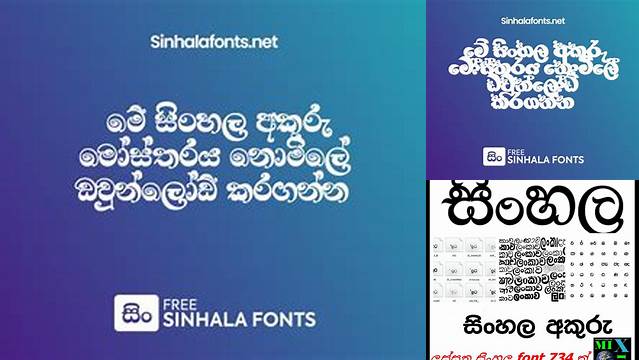
Free Sinhala Fonts: Download The Best Package Now!
1. Understanding the Importance of Sinhala Fonts
Sinhala fonts are essential for anyone working with the Sinhala script, which is used to write the Sinhala language spoken primarily in Sri Lanka. The right font can enhance readability and give your documents, websites, and designs a professional look. Using high-quality fonts ensures that your message is conveyed clearly and beautifully. It's not just about aesthetics; it's about respecting the language and its rich cultural heritage. Think about it – a poorly chosen font can make even the most compelling content look amateurish. So, let's make sure we get this right!
4. Essential Features to Look for in a Sinhala Font
When choosing a Sinhala font, there are several features to consider. First and foremost, readability is key. The font should be easy to read both on screen and in print. Look for fonts with clear, well-defined characters and consistent letter spacing. Also, check for support for all the necessary Sinhala characters and glyphs. A good font will also offer different weights and styles (e.g., bold, italic) to provide flexibility in your designs. Finally, consider the overall aesthetic of the font and how it fits with your project's theme. A font that looks great might not be the best choice if it doesn't align with your design goals.
5. Understanding Sinhala Script and Typography
To truly appreciate Sinhala fonts, it's helpful to understand the basics of Sinhala script and typography. Sinhala is an abugida, meaning that each consonant has an inherent vowel sound, which can be modified with diacritics. This makes Sinhala typography quite complex, requiring fonts that accurately render these diacritics and ligatures. Familiarizing yourself with these nuances will help you choose fonts that are not only beautiful but also typographically sound. Think of it as understanding the grammar of design – the more you know, the better you can communicate your message.
6. Different Styles of Sinhala Fonts
Just like any other language, Sinhala fonts come in various styles, each with its own unique character. There are serif fonts, which have small decorative strokes at the ends of letters, and sans-serif fonts, which have a cleaner, more modern look. You'll also find script fonts, which mimic handwriting, and display fonts, which are designed for headlines and other large text. The best style for your project will depend on the tone and purpose of your content. For formal documents, serif fonts often work well, while sans-serif fonts are great for websites and digital media. Knowing the different styles allows you to make informed choices that enhance your overall design.
7. How to Install Sinhala Fonts on Your Computer
Installing Sinhala fonts on your computer is a straightforward process. On Windows, you can simply right-click the font file and select “Install.” On macOS, you can open the font file with Font Book and click “Install Font.” Once installed, the font should be available in your word processors, design software, and other applications. If you encounter any issues, restarting your computer can sometimes help. Make sure to organize your fonts into folders to keep them easily accessible. A well-organized font library will save you time and frustration in the long run.
8. Using Sinhala Fonts in Microsoft Word
Using Sinhala fonts in Microsoft Word is quite simple. After installing the font, open Word and select the font from the font dropdown menu. You may need to switch your keyboard layout to Sinhala to type in the script. Word’s advanced typography features allow you to fine-tune the appearance of your text, adjusting letter spacing and other settings. Experiment with different font sizes and styles to find what works best for your document. Remember, the goal is to create a document that is both visually appealing and easy to read.
9. Incorporating Sinhala Fonts in Adobe Photoshop
For designers, incorporating Sinhala fonts in Adobe Photoshop is essential. After installing the font, select the Type tool and choose your desired Sinhala font from the font menu. Photoshop offers a range of typographic controls, allowing you to adjust kerning, tracking, and leading to achieve the perfect look. You can also apply various effects and styles to your text layers to create stunning designs. Don't be afraid to experiment with different font combinations and effects to make your work stand out. Photoshop's versatility makes it a powerful tool for Sinhala typography.
10. Best Practices for Sinhala Typography
Good Sinhala typography is about more than just choosing a pretty font. It's about creating text that is both legible and visually appealing. Pay attention to letter spacing, line height, and font size. Use different font weights and styles to create hierarchy and emphasis. Avoid using too many different fonts in a single design, as this can make your work look cluttered. And always proofread your text carefully to catch any typos or formatting errors. Following these best practices will help you create professional-looking designs that effectively communicate your message.
11. Troubleshooting Common Sinhala Font Issues
Sometimes, you might encounter issues with Sinhala fonts, such as characters not displaying correctly or fonts appearing distorted. This can often be due to font corruption or compatibility issues. Try reinstalling the font or updating your software. Make sure your system and applications support Unicode, as this is essential for displaying Sinhala script correctly. If you’re still having problems, try searching online forums or contacting technical support for your software. Troubleshooting is a part of the design process, so don't get discouraged if you run into a few bumps along the way.
12. The Future of Sinhala Typography
The future of Sinhala typography is bright, with ongoing developments in font technology and design. As digital media continues to evolve, there is a growing demand for high-quality Sinhala fonts that work well on screens. Designers are exploring new styles and techniques, pushing the boundaries of what’s possible. Open-source initiatives are also playing a crucial role in making Sinhala fonts more accessible. Keeping up with these trends will help you stay at the forefront of Sinhala typography and create cutting-edge designs.
13. Sinhala Fonts for Web Design
Using Sinhala fonts for web design requires careful consideration. Web fonts need to be optimized for online use, ensuring they load quickly and display correctly across different browsers and devices. Google Fonts is a great resource for web-safe Sinhala fonts. You can also use font embedding services to include custom fonts on your website. Make sure to test your website thoroughly to ensure the fonts render correctly and that the text is readable. A well-designed website with beautiful Sinhala typography can greatly enhance the user experience.
14. Sinhala Fonts for Print Design
When designing for print, the choice of Sinhala fonts is crucial. High-resolution fonts are essential for producing crisp, clear text in printed materials. Consider the weight and style of the font, as well as the paper type and printing method. Serif fonts are often a good choice for body text in print, while sans-serif fonts can work well for headings and titles. Always proof your designs carefully before printing to ensure everything looks perfect. Print design requires attention to detail, and the right font can make all the difference.
15. Creating Your Own Sinhala Font
If you’re feeling adventurous, you might even consider creating your own Sinhala font. Font design is a complex but rewarding process, requiring specialized software and a keen eye for detail. There are various font editors available, such as FontForge and Glyphs, that provide the tools you need to create your own unique fonts. Designing a font from scratch takes time and effort, but the result can be a truly personal and original typeface. It’s a great way to contribute to the Sinhala typographic landscape.
16. Sinhala Calligraphy and Font Design
Sinhala calligraphy has a rich tradition, influencing the design of many Sinhala fonts. Traditional Sinhala script is characterized by its elegant curves and flowing lines. Studying calligraphy can provide valuable insights into the structure and aesthetics of the Sinhala script, helping you choose and use fonts more effectively. Calligraphy also offers a unique way to express creativity and connect with the cultural heritage of the Sinhala language. It’s a beautiful art form that can inspire and inform your typographic work.
17. Licensing and Usage Rights for Sinhala Fonts
Understanding the licensing and usage rights for Sinhala fonts is crucial, especially if you plan to use them for commercial projects. Many free fonts come with specific restrictions, such as requiring attribution or prohibiting commercial use. Always check the font’s license before using it to ensure you comply with the terms. Open-source fonts often offer more flexibility, but it’s still important to review the license. Respecting font licenses protects the rights of designers and ensures the continued availability of high-quality fonts.
18. Sinhala Font Resources for Designers
Designers working with Sinhala fonts have access to a variety of resources, including online tutorials, font foundries, and design communities. Websites like Behance and Dribbble showcase inspiring examples of Sinhala typography. Font foundries often provide detailed information about their fonts, including character sets and usage guidelines. Joining design communities can connect you with other designers and provide valuable feedback on your work. These resources can help you expand your skills and create stunning Sinhala typography.
19. The Evolution of Sinhala Fonts
The evolution of Sinhala fonts reflects the changing needs of users and advancements in technology. Early Sinhala fonts were often based on traditional calligraphy styles, while modern fonts incorporate contemporary design principles. The shift from print to digital media has also influenced font design, with a greater emphasis on screen readability. Exploring the history of Sinhala typography can provide a deeper appreciation for the art and craft of font design. It’s a story of continuous innovation and adaptation.
20. Popular Sinhala Font Families
There are several popular Sinhala font families that are widely used in various applications. These fonts often offer a range of weights and styles, providing versatility for different design needs. Some well-known Sinhala fonts include FM Abhaya, Iskoola Pota, and LKLug. Exploring these font families can give you a good starting point for your projects. Each font family has its unique characteristics, so it’s worth experimenting to find the ones that best suit your style and requirements.
21. Matching Sinhala Fonts with Other Scripts
When working on bilingual or multilingual projects, matching Sinhala fonts with fonts from other scripts is an important consideration. Choose fonts that complement each other in terms of style and weight. Pay attention to the overall visual harmony of the text. For example, a clean sans-serif Sinhala font might pair well with a similar sans-serif Latin font. Experiment with different combinations to find the most effective pairings. Good font pairing enhances readability and creates a cohesive design.
22. Sinhala Fonts for Mobile Devices
Designing for mobile devices requires careful selection of Sinhala fonts. Mobile screens have limited space, so readability is paramount. Choose fonts that are clear and legible at small sizes. Test your fonts on different devices and screen resolutions to ensure they render correctly. Consider using web fonts that are optimized for mobile viewing. A well-chosen font can significantly improve the user experience on mobile devices.
23. Accessibility Considerations for Sinhala Fonts
Accessibility is a crucial aspect of Sinhala font usage. Choose fonts that are easy to read for people with visual impairments. Provide sufficient contrast between the text and background. Use appropriate font sizes and line spacing. Consider using fonts that support OpenType features, such as ligatures and alternate glyphs, to improve readability. Designing with accessibility in mind ensures that your content is accessible to everyone.
24. Sinhala Font Design Trends
The world of Sinhala font design is constantly evolving, with new trends emerging all the time. Current trends include the use of geometric sans-serif fonts, hand-drawn fonts, and fonts with a vintage aesthetic. Keeping up with these trends can help you create designs that are fresh and contemporary. However, it’s also important to choose fonts that are timeless and appropriate for your project. Trends come and go, but good typography is always in style.
25. Using Sinhala Fonts in Video Editing
Adding Sinhala fonts to your video projects can enhance their visual appeal and cultural relevance. Video editing software typically supports a wide range of fonts, allowing you to create titles, captions, and other text elements. Choose fonts that are legible on screen and complement the overall style of your video. Consider using motion graphics and animation to bring your text to life. Good typography can make your videos more engaging and professional.
26. Sinhala Fonts for Social Media
Creating engaging content for social media often involves using Sinhala fonts in your graphics and text posts. Choose fonts that are eye-catching and easy to read on small screens. Use different font styles to create visual hierarchy and highlight important information. Consider using custom fonts to create a unique brand identity. Social media is a visual medium, so good typography can help your content stand out.
27. Free vs. Premium Sinhala Fonts
When searching for Sinhala fonts, you'll encounter both free and premium options. Free fonts can be a great choice for personal projects or when you're on a tight budget. However, premium fonts often offer higher quality, more features, and better support. Consider your project's needs and budget when deciding between free and premium fonts. Investing in premium fonts can be worth it for professional projects where quality is paramount.
28. Contributing to the Sinhala Font Community
If you’re passionate about Sinhala fonts, consider contributing to the community. You can share your favorite fonts, provide feedback on font designs, or even create your own fonts. Open-source font projects welcome contributions from designers and developers. By contributing to the community, you can help ensure the continued availability and quality of Sinhala fonts. It’s a rewarding way to give back to the design world.
29. Resources for Learning Sinhala Typography
Learning the principles of Sinhala typography can greatly enhance your design skills. There are numerous online resources available, including tutorials, articles, and courses. Books on typography and graphic design can also provide valuable insights. Consider joining design communities and attending workshops or conferences to learn from experts. Continuous learning is essential for staying up-to-date with the latest trends and techniques.
30. Maintaining Your Sinhala Font Library
Maintaining a well-organized Sinhala font library is crucial for efficient workflow. Organize your fonts into folders based on style, project, or license. Use a font management tool to preview and activate fonts. Regularly back up your font library to prevent data loss. Keeping your font library organized will save you time and make it easier to find the perfect font for your projects.